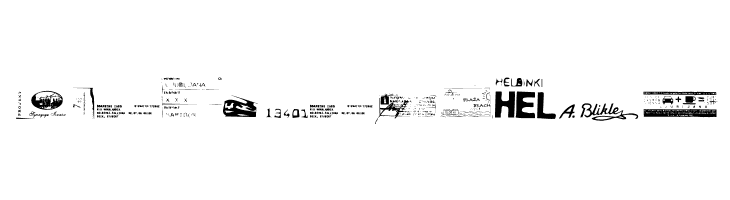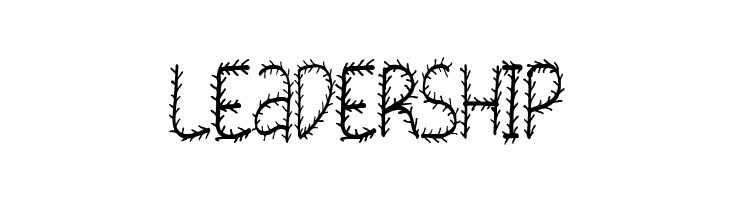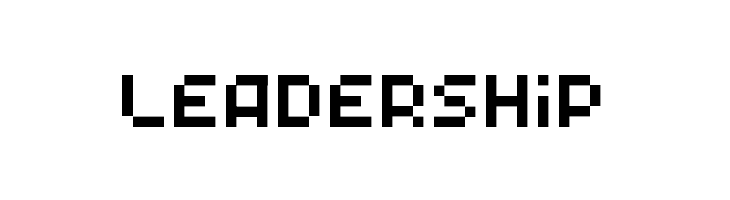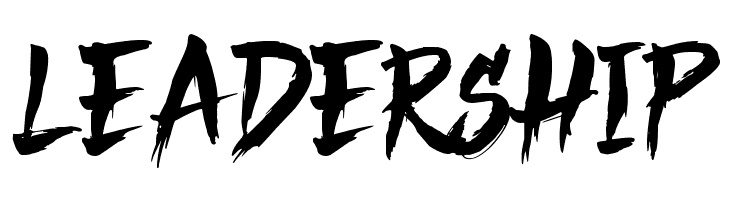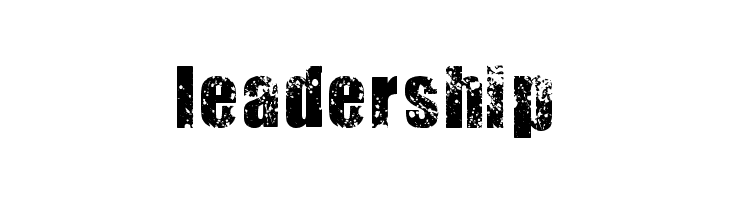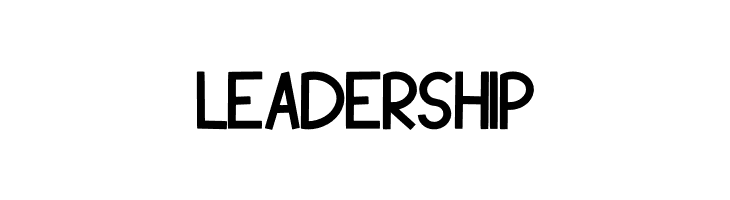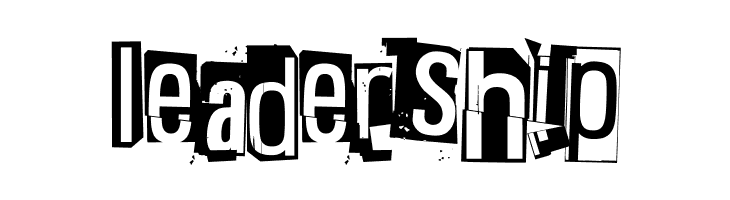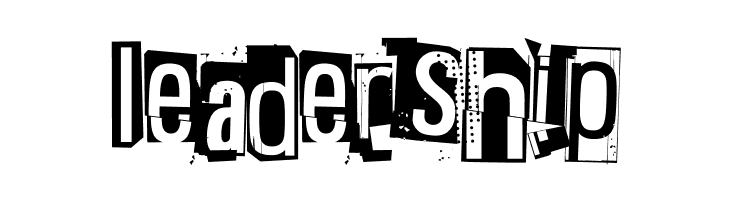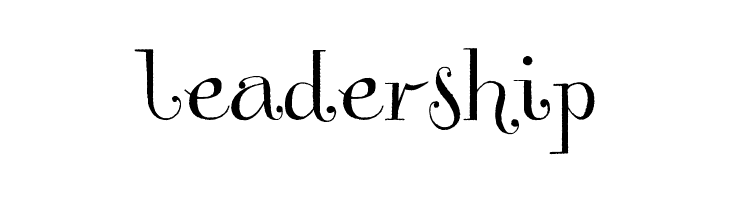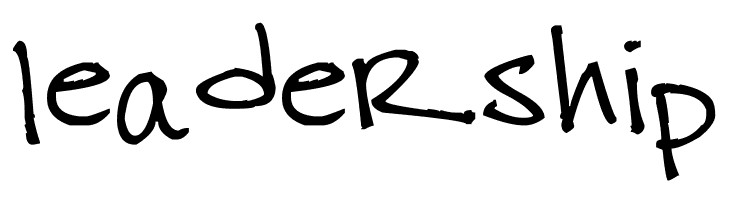
A futuristic, geometric font with clean lines and a minimalist aesthetic.
A pixelated, retro-style font with a blocky, geometric design.
A bold, angular font with sharp, geometric elements and high contrast.
A jagged, thorny decorative font with an intense and chaotic style.
A whimsical, tentacle-inspired decorative font with intricate details and playful movement.
A bold, geometric font with rounded edges and a modern, futuristic style.
A modern, geometric font with clean lines and a futuristic feel.
A bold, geometric font with sharp angles and a modern style.
A playful and elegant handwritten font with flowing, connected letterforms.
A playful, casual handwritten font with rounded, consistent strokes.
A bold, playful script font with interconnected, rounded characters and decorative uppercase letters.
A bold, claw-like font with sharp, jagged edges for dramatic impact.
A bold, playful script font with decorative loops and swirls.
A segmented, digital display-style font with a bold, geometric appearance.
A bold, geometric font with futuristic cut-out details.
A flowing, cursive font with elegant, interconnected characters.
A bold, geometric, and decorative font with a modern flair.
A spooky, decorative font with jagged edges and a dripping effect, perfect for Halloween themes.
A bold, playful handwritten font with an energetic and informal style.
A playful, dot-connected font with a whimsical and friendly style.
An elegant font with flowing swashes and intricate flourishes, ideal for decorative use.
A bold, cursive font with dramatic flourishes and high contrast strokes.
An ornate and decorative font with intricate swashes and flourishes.
An elegant and flowing script font with sophisticated cursive letterforms.
A playful and flowing script font with smooth, connected strokes and rounded forms.
An elegant, calligraphic font with flowing, decorative characters.
A bold, angular font with a shadow effect for dramatic visual impact.